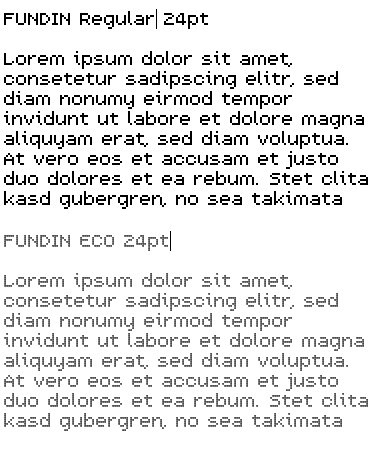
• Clone of Fundin Regular. Built from hollow bricks to save up to 20% ink.
At small sizes it looks nearly identical to the regular version. When printed with inkjet printers, it demands a few pico litres less ink for each pixel. It could save an estimated 20% of ink, reportedly.
Good @ pixel size (as you intended)
I had recently been thinking of an 'eco' font for a future project ... you beat me to it with this good work :)
@p2pnut: The ink saving font was not my idea. You can find several examples on the web. It is not too late to release an Eco version of some useful pixel fonts.
For those who are not familiar with European superstore chains: the sample picture is a mock-up of TESCO's value/economy label, except the text, of course.
Yes, I've seen a few eco fonts. What I really meant was I had put the idea to one side and promptly forgotten about it :(